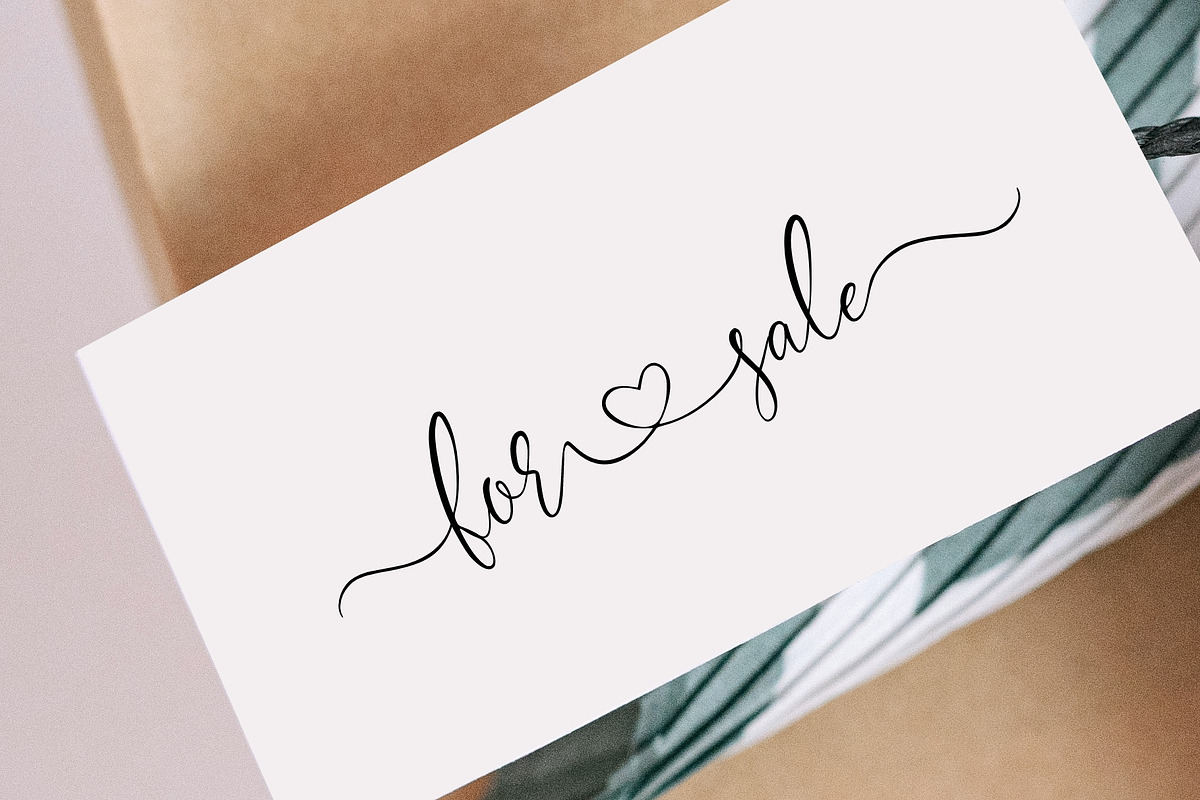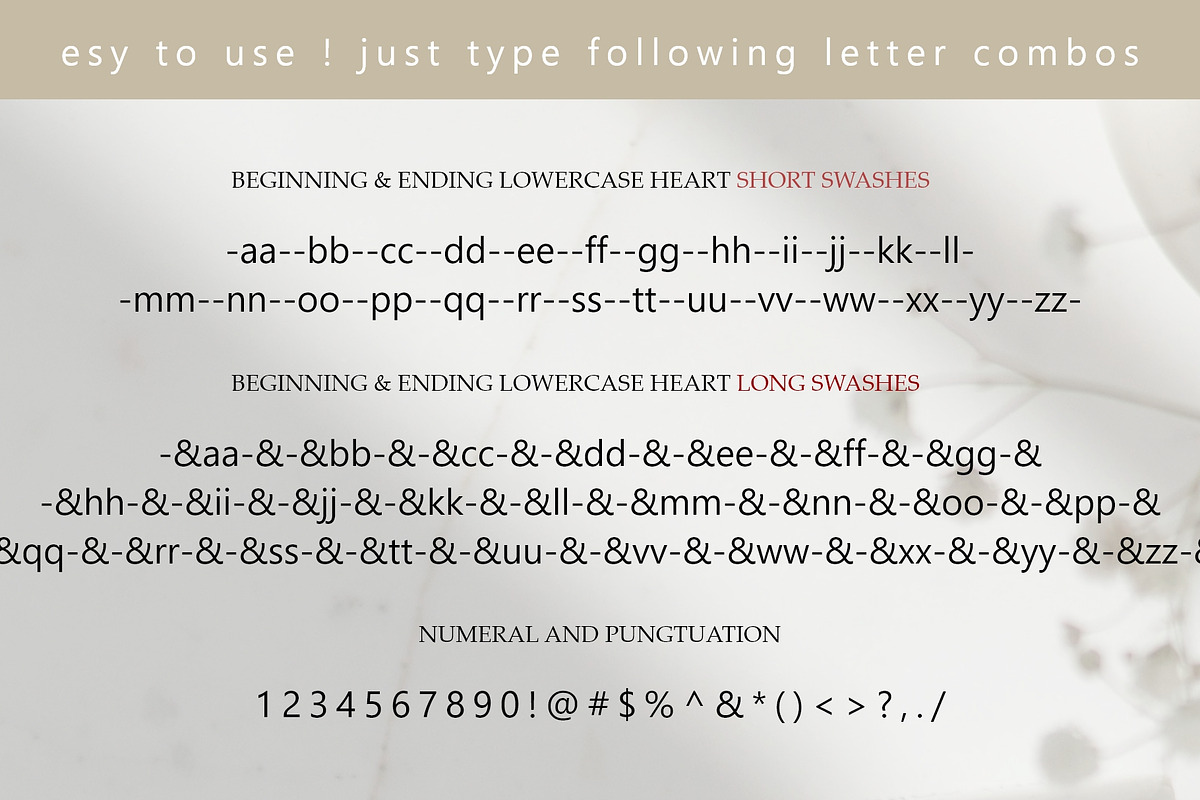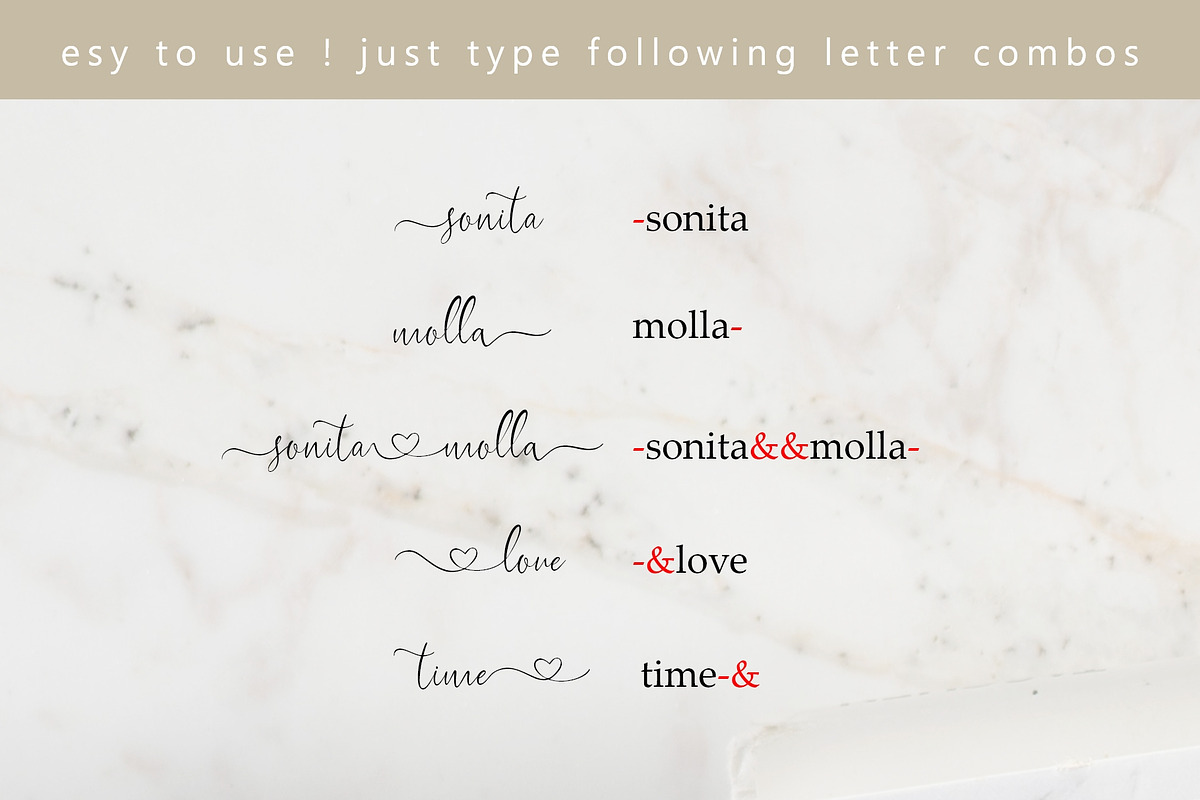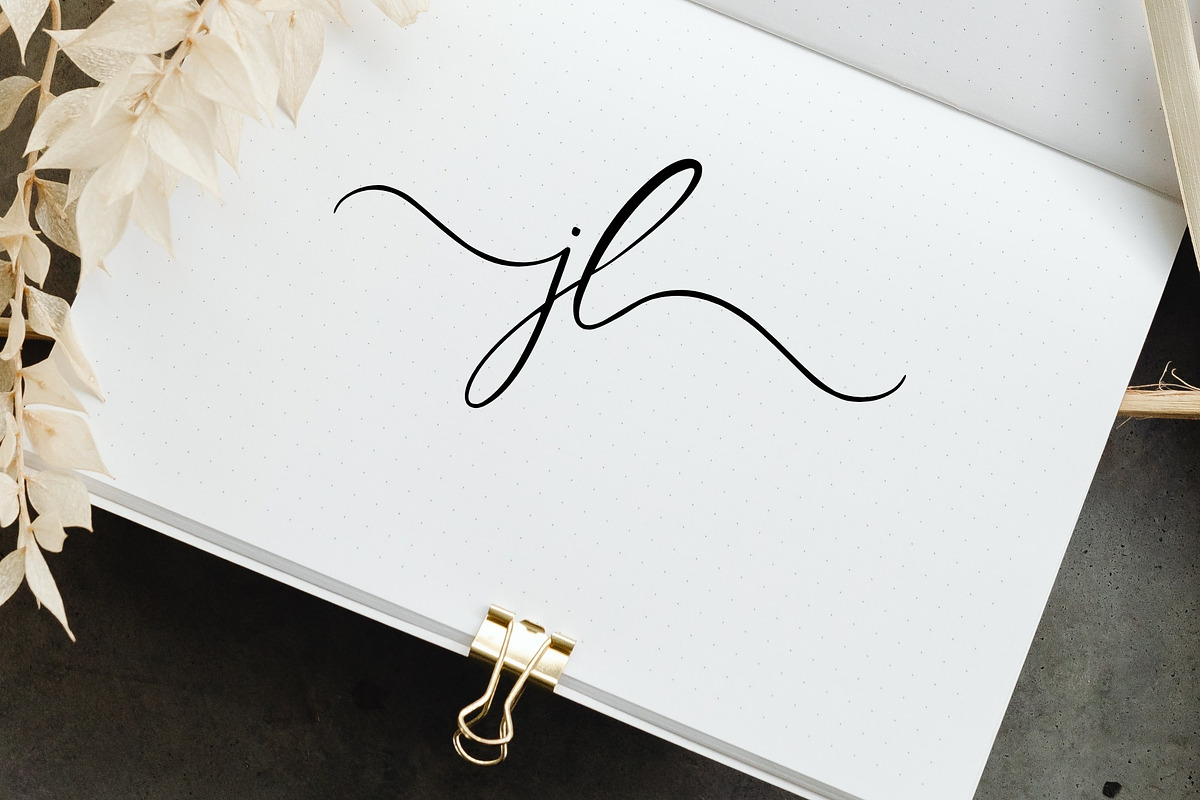
About Soul and Mate
Soul and Mate Font is a romantic and elegant script typeface featuring delicate strokes and flowing handwritten curves. Perfect for wedding invitations, love-themed designs, signature logos, and feminine branding, it brings a graceful and heartfelt touch to every creation.